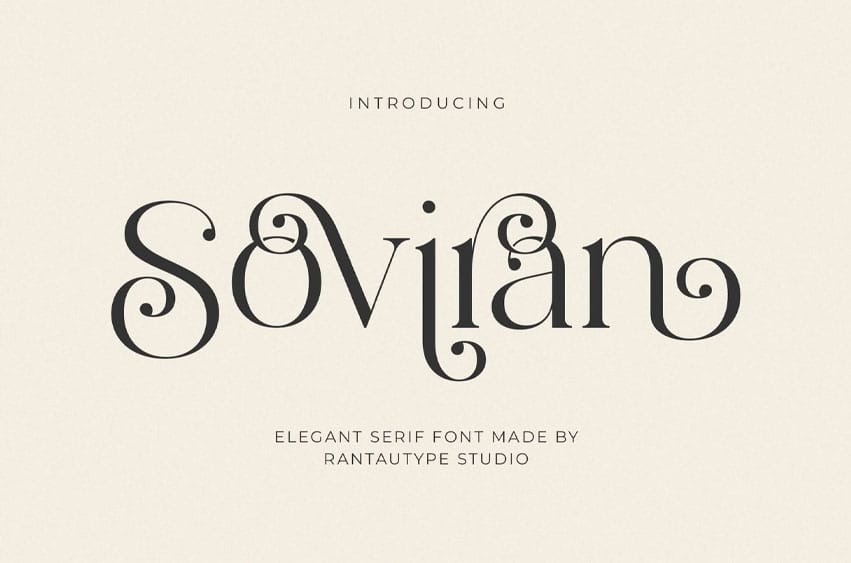
Soviran Font elegant serif font perfect for your branding.
Soviran is a perfectly choice for any creative endeavor, creating, modern, lifestyle design such as logotype, title, cover, branding, invitations, wedding designs, display and magazine, social media posts, advertisements, printed quotes, product packaging, corporate brand, product designs, labels, photography, watermarks, special events and any other project with elegant touch.
- Numberial and Functional
- Support Multilingual Character